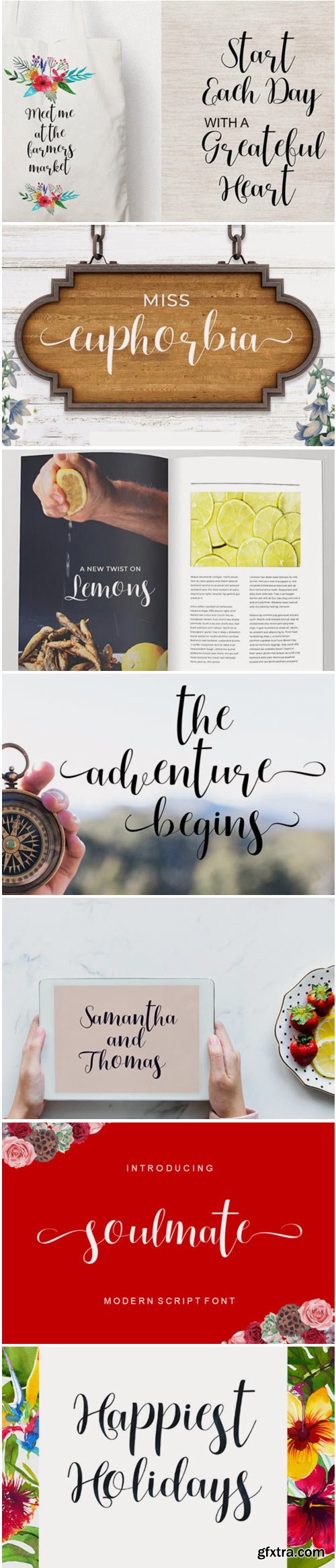
Soulmate Font
Soulmate is an elegant and authentic handwritten font with a decorative touch. It will elevate any design project with its unique charm and beautiful swashes.